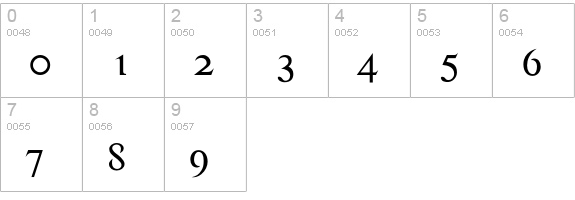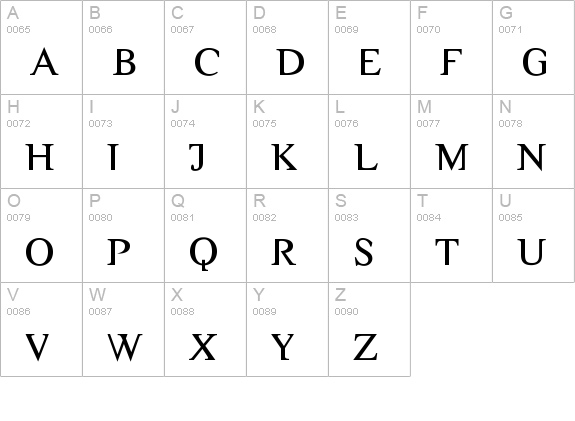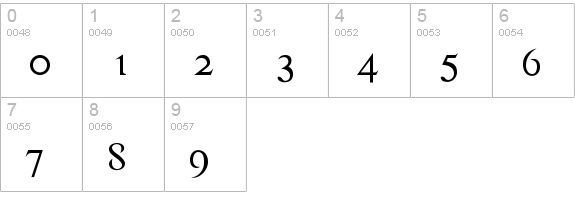
HardTimesRegular Font Details
HardTimesRegular is a unique and versatile font that effortlessly combines elegance with a touch of modernity. With its bold and clean lines, this font is perfect for a wide range of design projects, from branding and advertising to packaging and web design. The HardTimesRegular font exudes confidence and sophistication, making it a go-to choice for designers who want to make a bold statement. Its strong and legible characters ensure that your message is delivered with clarity and impact. Whether you are designing a logo, creating a poster, or crafting a website, this font will definitely catch attention and leave a lasting impression. One of the best things about HardTimesRegular font is that it is freely available to download at FontsMarket.com. This means that you can easily access and use this font for all your personal and commercial projects without any hassle. It offers a great opportunity to enhance your designs with a premium-quality font without breaking the bank. So, why settle for ordinary when you can elevate your designs with the HardTimesRegular font? Download it for free at FontsMarket.com and unleash your creativity today!